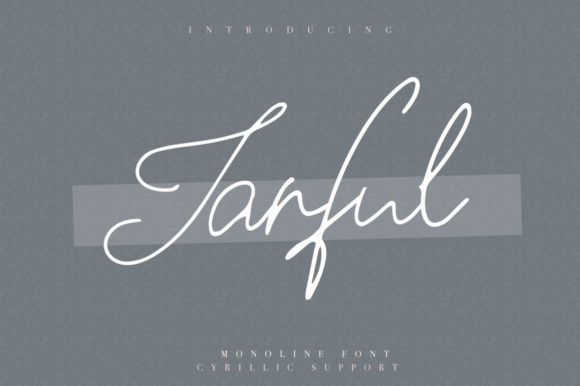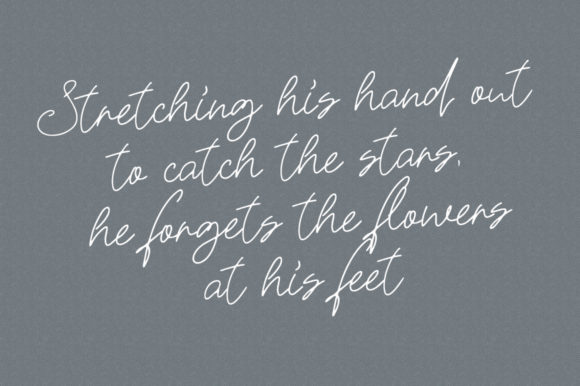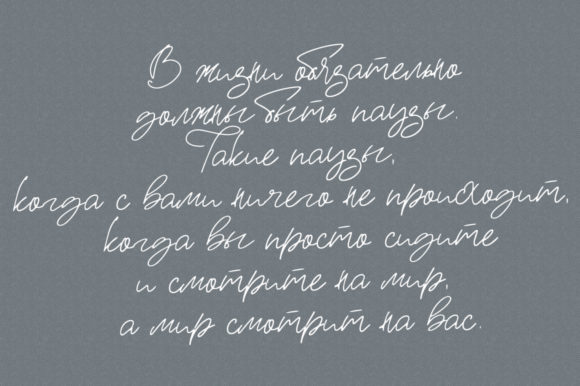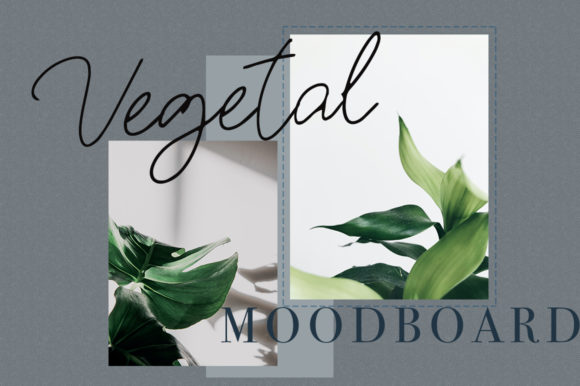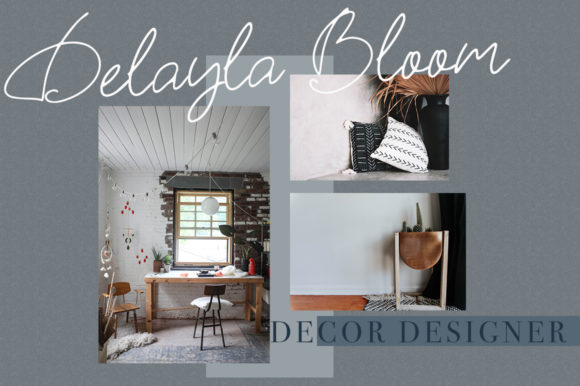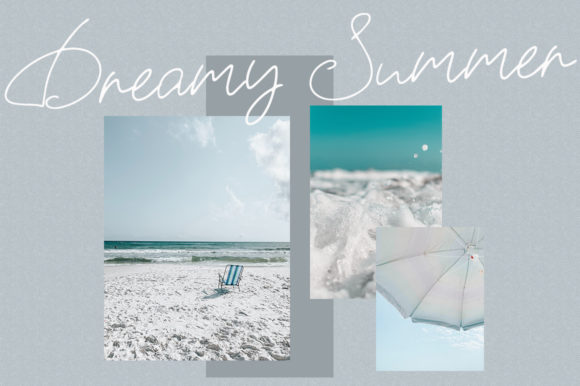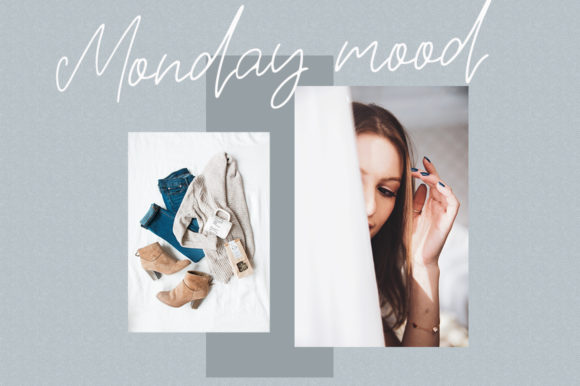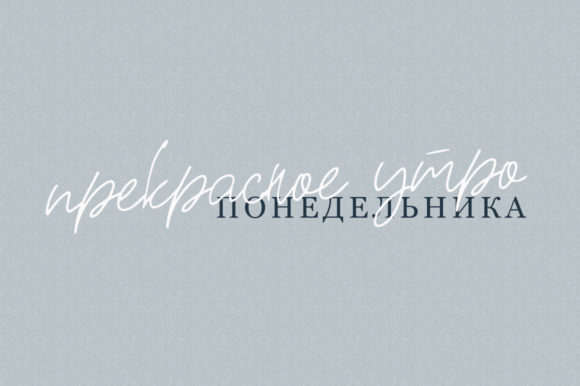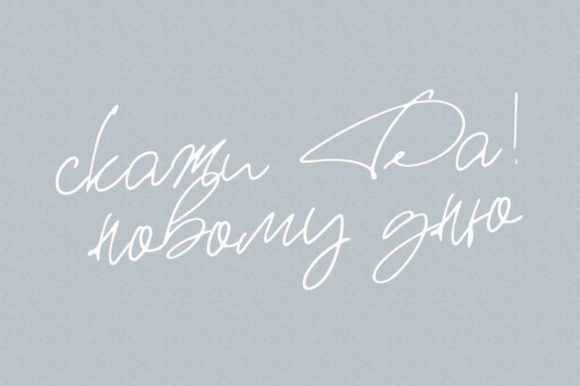
Jarful Font
About Jarful Font
Jarful is a flowing and relaxed handwritten font, masterfully designed to become a true favorite. Its simple and elegant style makes this font look stunning on wedding invitations, thank you cards, quotes, greeting cards, logos, business cards and every other design which needs a handwritten touch.